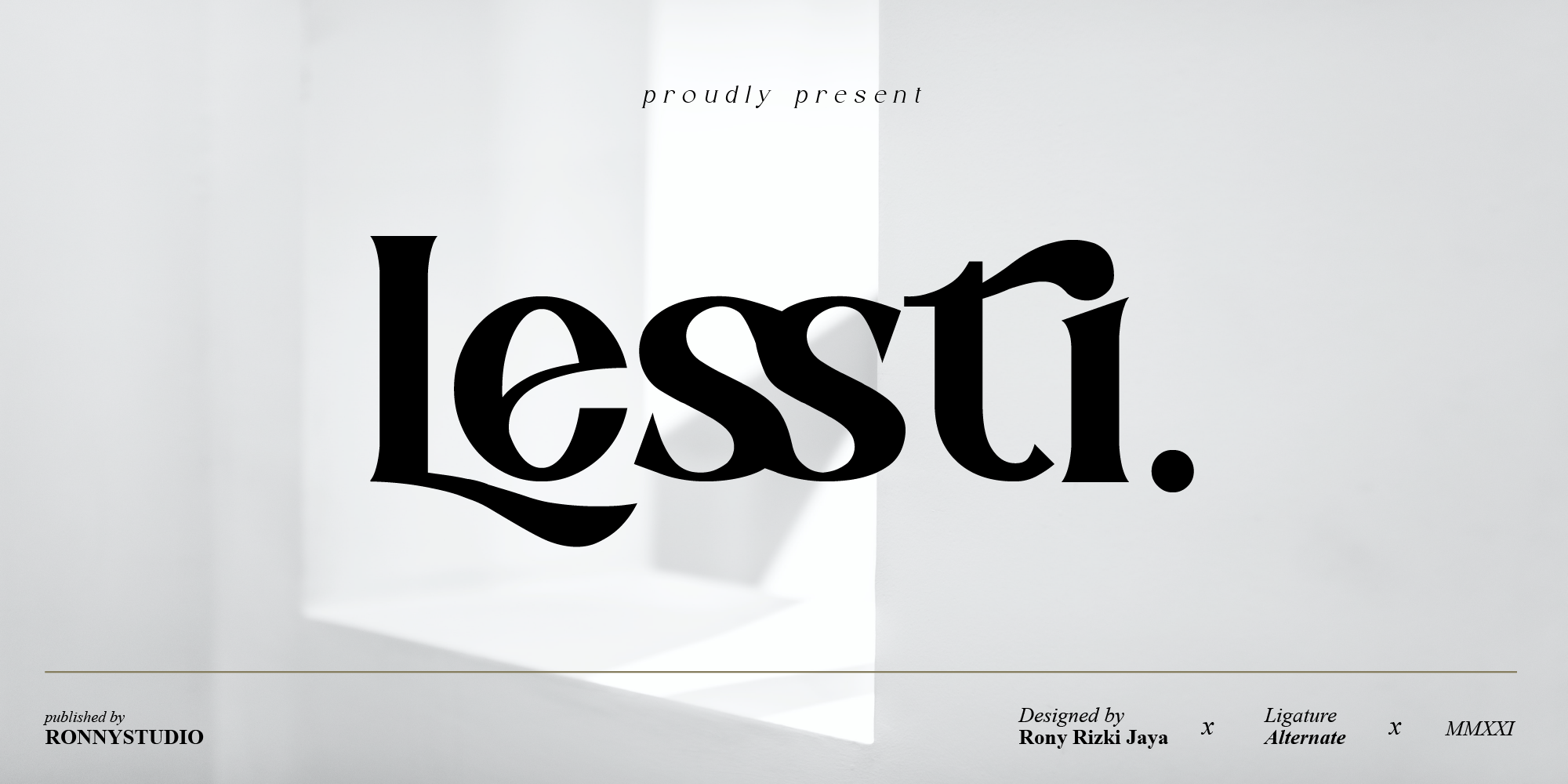
Lessti Font is perfect for contemporary art exhibitions, modern gallery signage, creative studio branding, avant-garde fashion magazines, experimental design projects, progressive cultural institutions, artistic portfolio presentations, and innovative digital art platforms. This distinctive typeface brings artistic sophistication and creative innovation to any project requiring unique, expressive typography with genuine artistic credibility and contemporary cultural appeal.
What makes Lessti Font exciting is its perfect embodiment of artistic expression and creative innovation that captures the experimental spirit of contemporary art and the bold vision of modern creative professionals pushing boundaries in design and cultural expression. The font features unique letterforms with distinctive character details and innovative proportions that reflect the individuality of artistic vision while maintaining professional readability for cultural and creative applications. Its artistic character and creative sophistication make it ideal for galleries, design studios, and cultural organizations seeking to convey artistic excellence and creative authenticity. The typeface's innovative appeal ensures instant recognition of artistic quality and creative professionalism.
The Lessti Font family includes Light, Regular, Medium, Bold, and Artistic variants, each maintaining the signature creative character while offering different expressions of artistic sophistication and contemporary innovation. The family features artistic symbols, creative elements, and cultural decorations that enhance its versatility for gallery branding and contemporary art projects. These variants provide comprehensive tools for creating authentic artistic typography with genuine creative character and cultural appeal.
Whether you're designing for art galleries, creative agencies, or cultural institutions, Lessti Font Free Download delivers the artistic sophistication that defines exceptional contemporary typography. Its combination of creative innovation and artistic elegance makes it perfect for communicating artistic excellence, creative vision, and cultural sophistication with authentic Lessti Font Free Download character and unforgettable artistic presence.